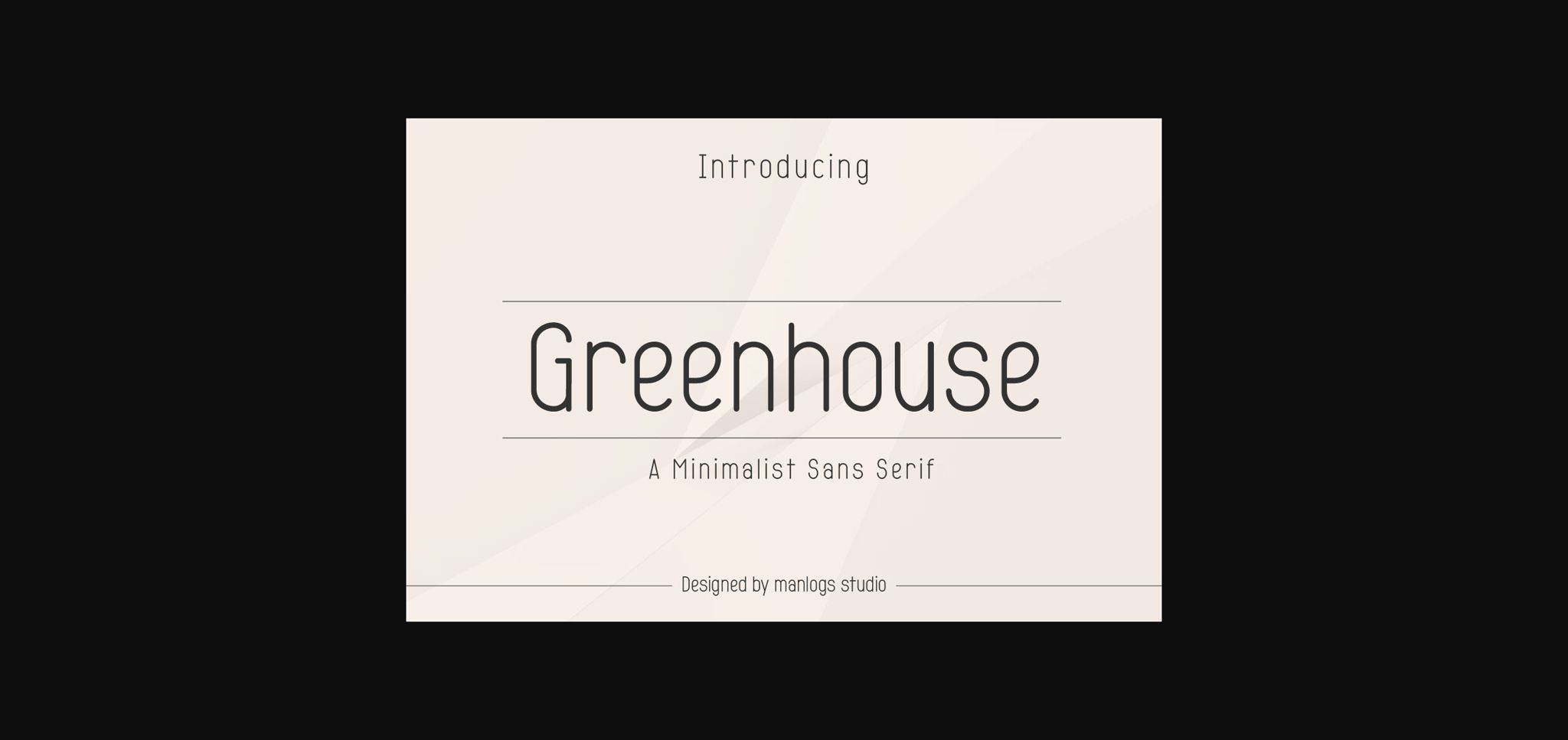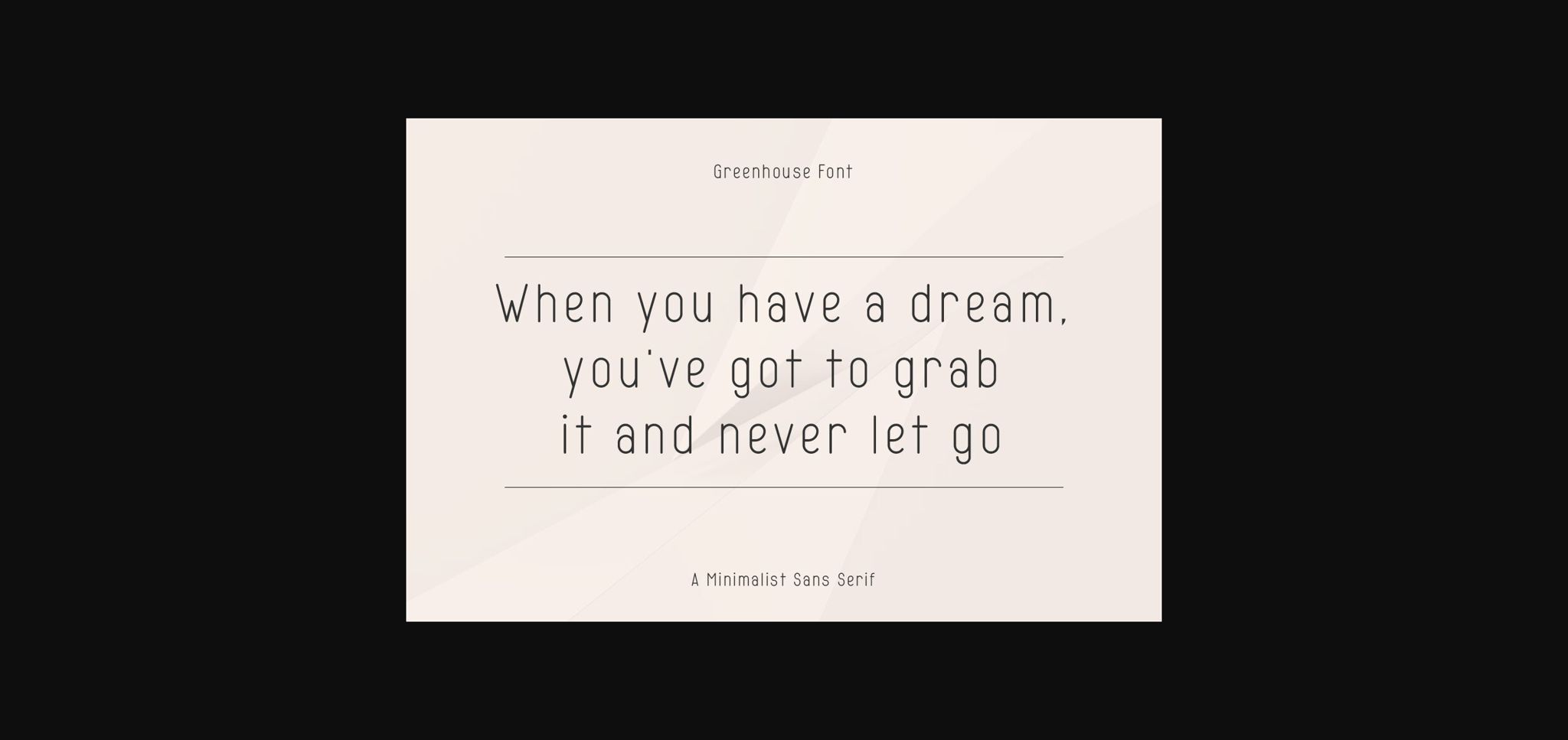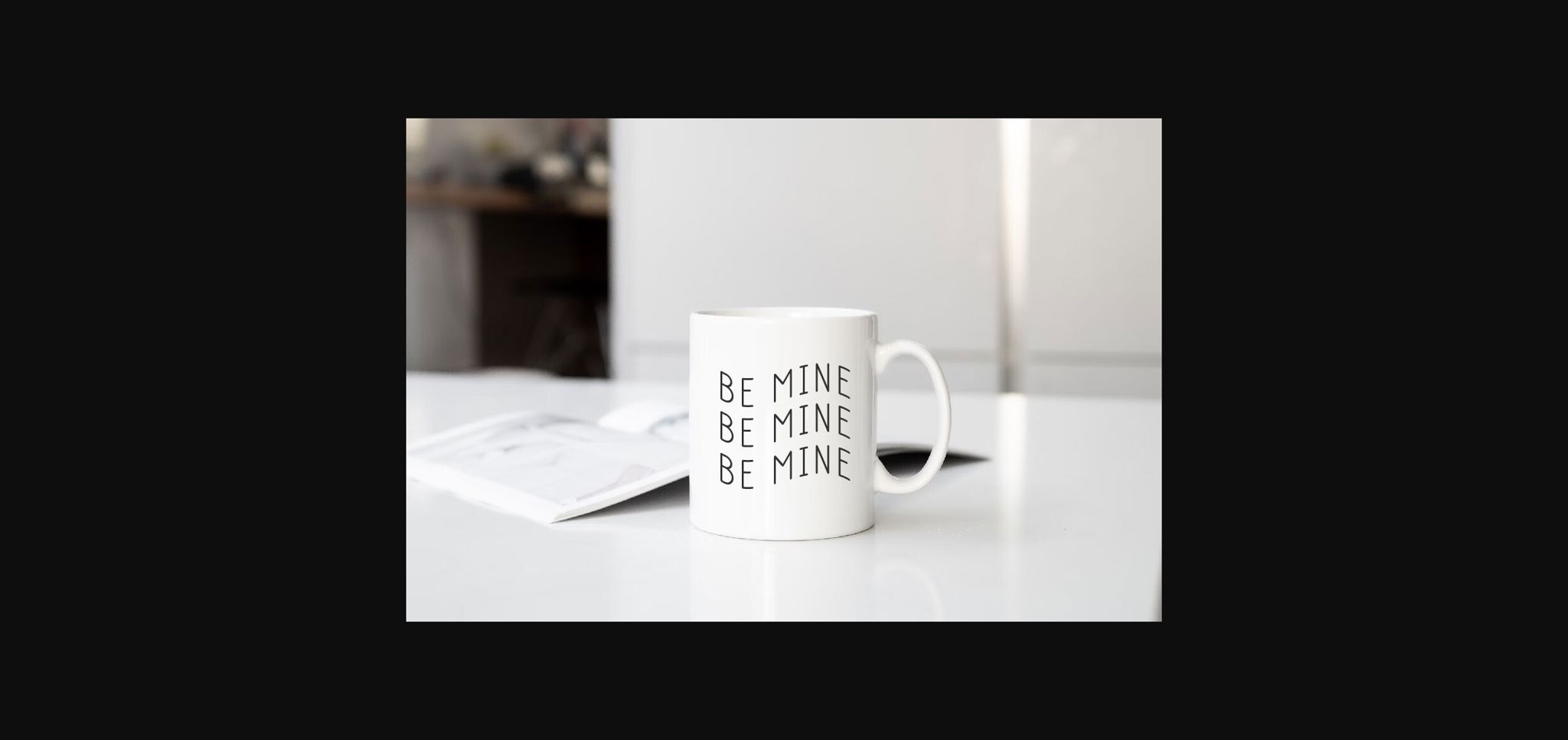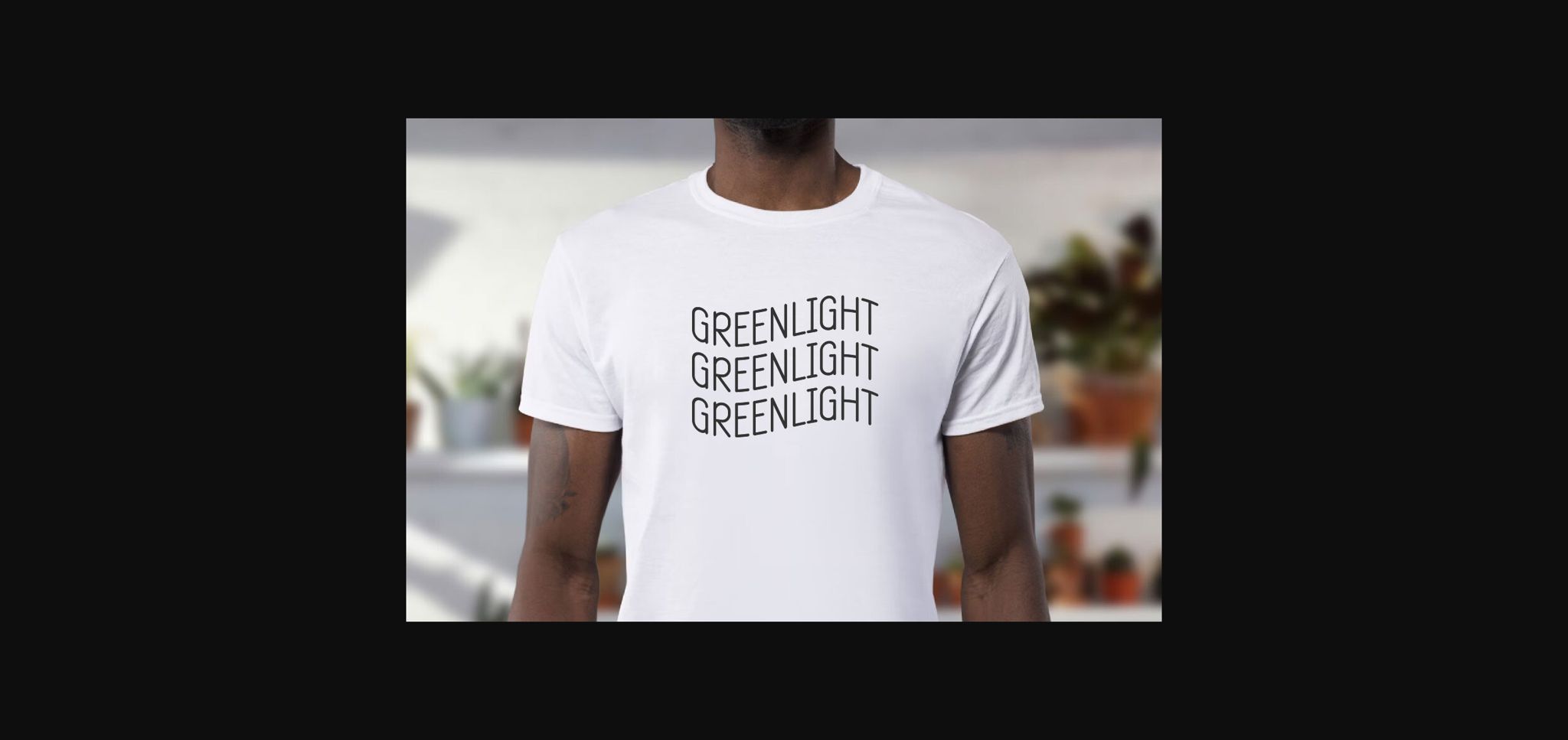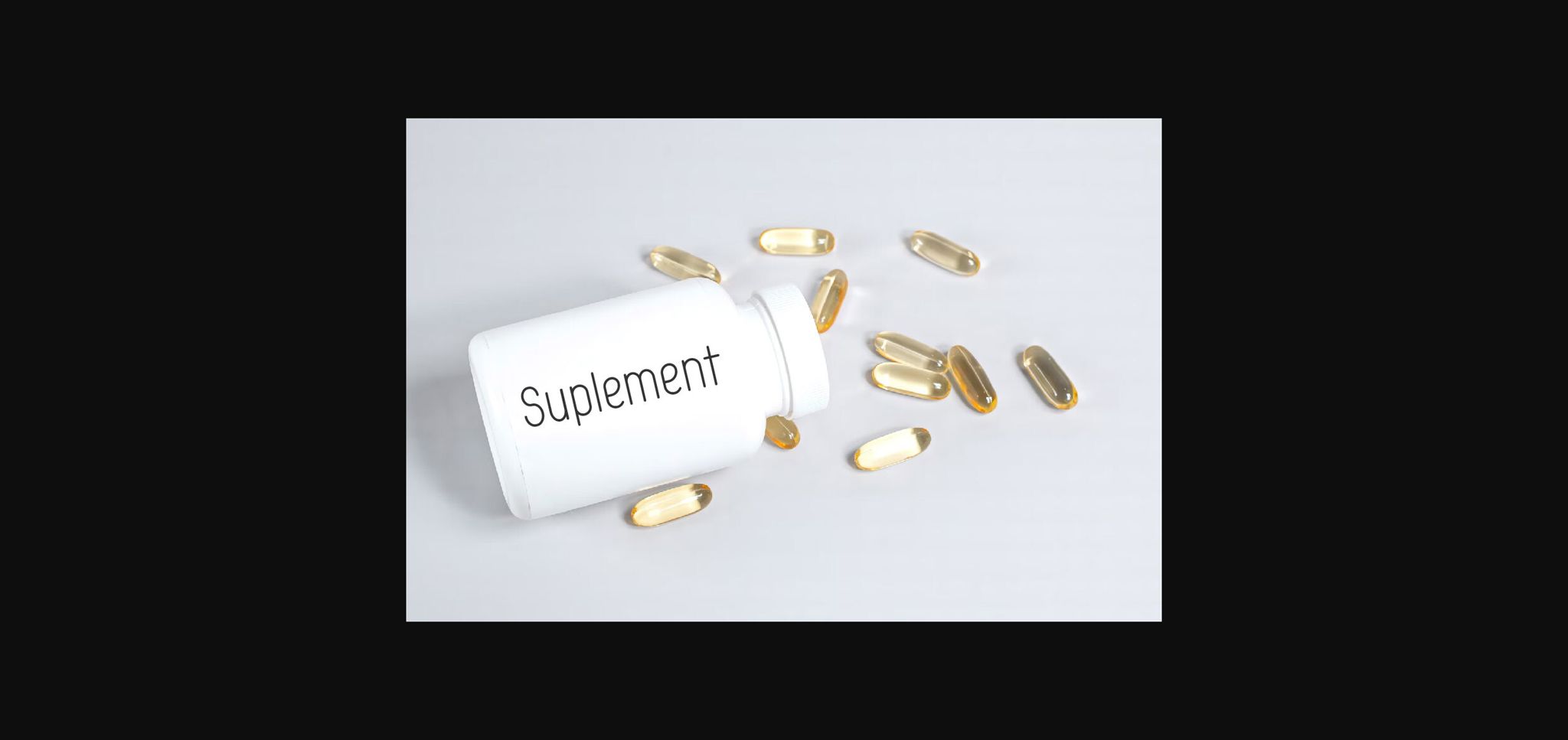
About Greenhouse Font
Greenhouse is a simple and versatile sans serif font, sweet and pretty. This font is very suitable for craft designs, packaging, presentations, t-shirts, labels, weddings, logos, blogs, greeting cards, mugs, branding and much more!